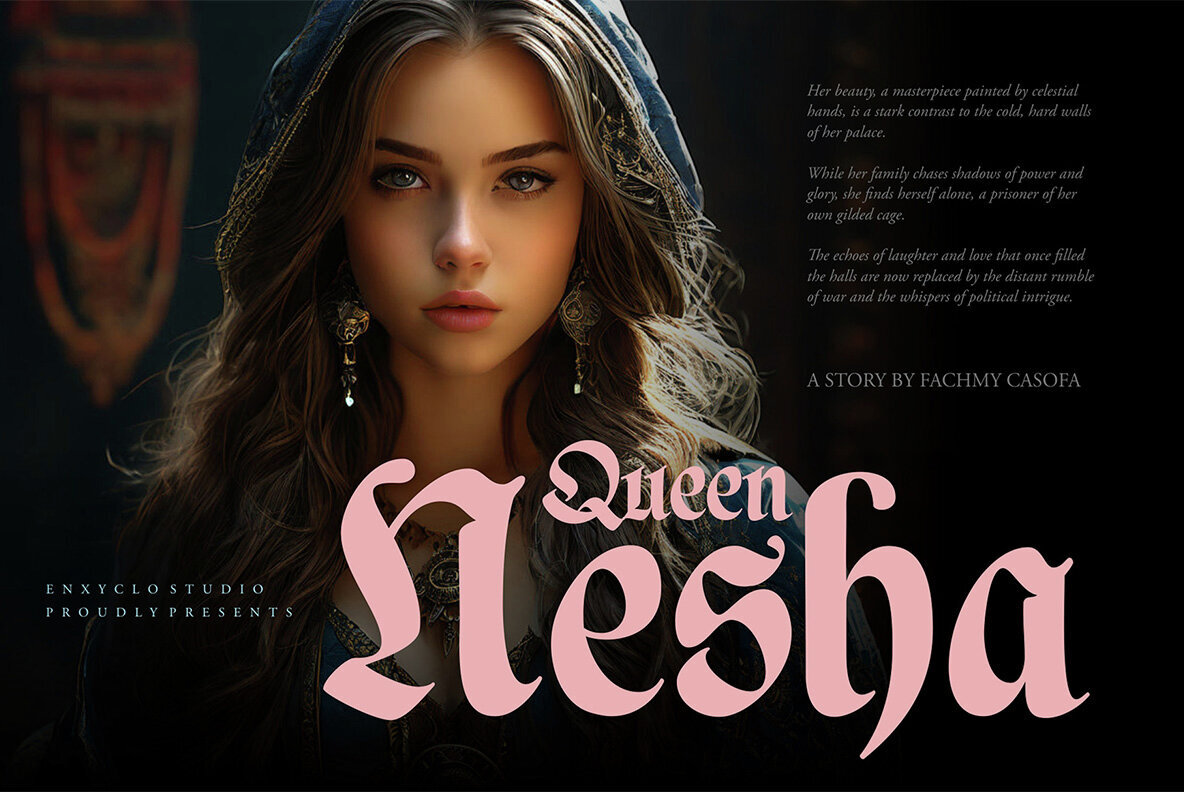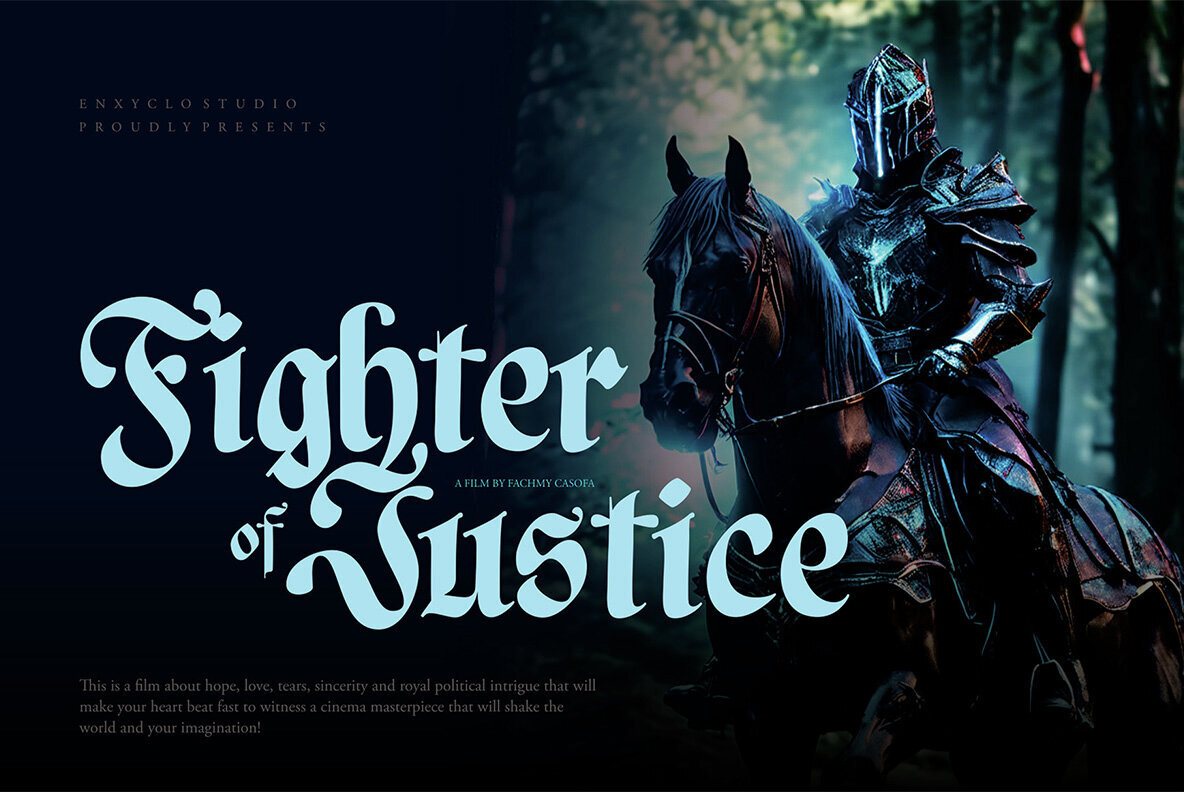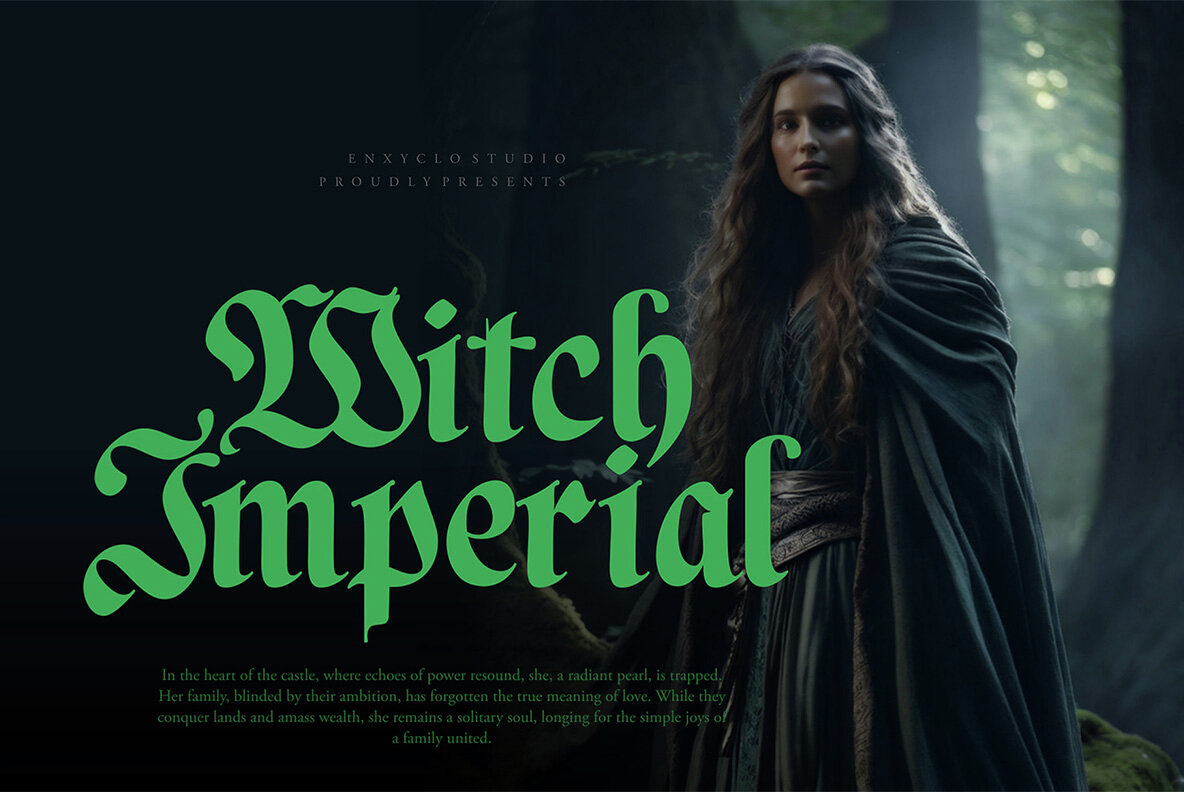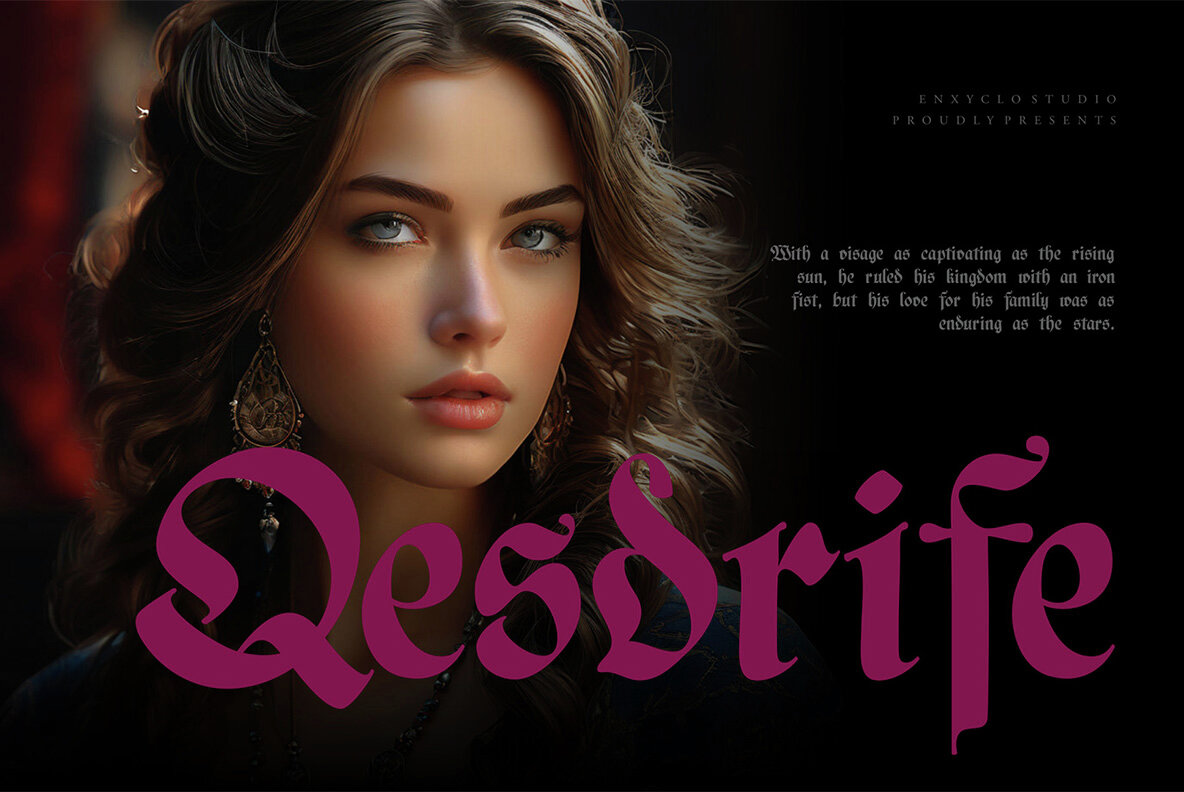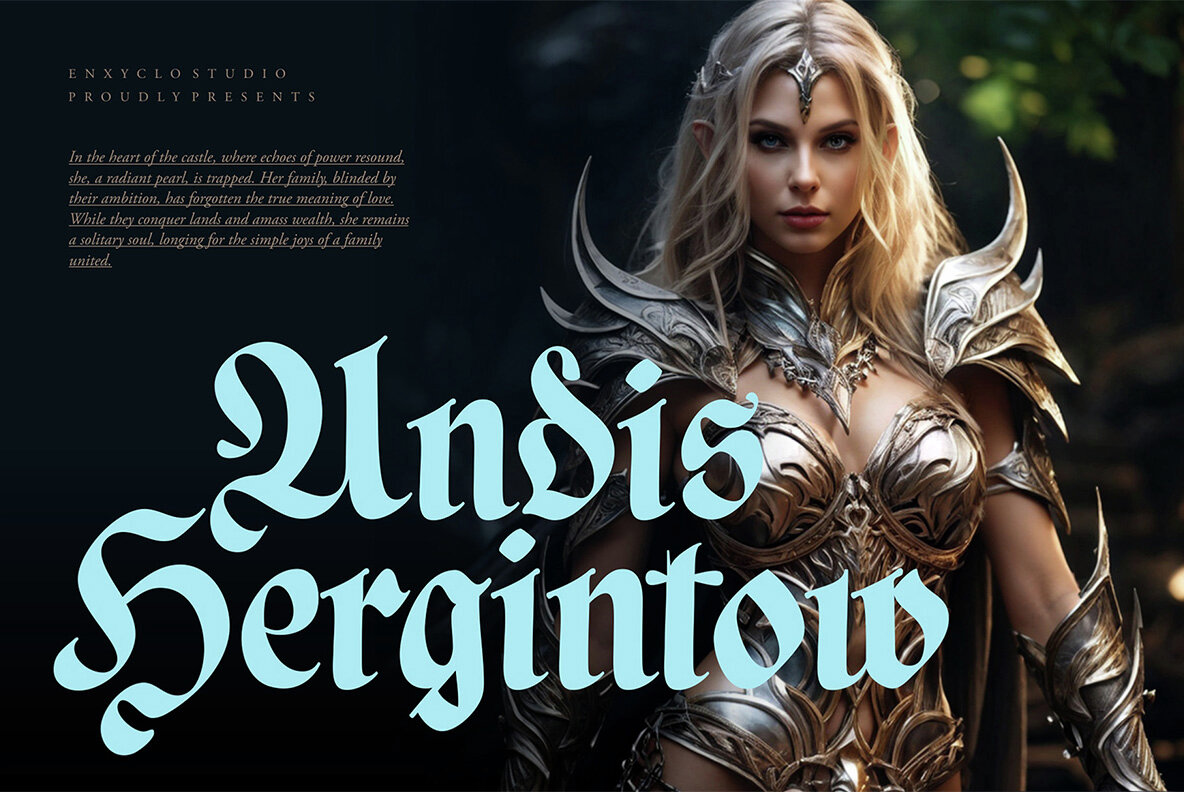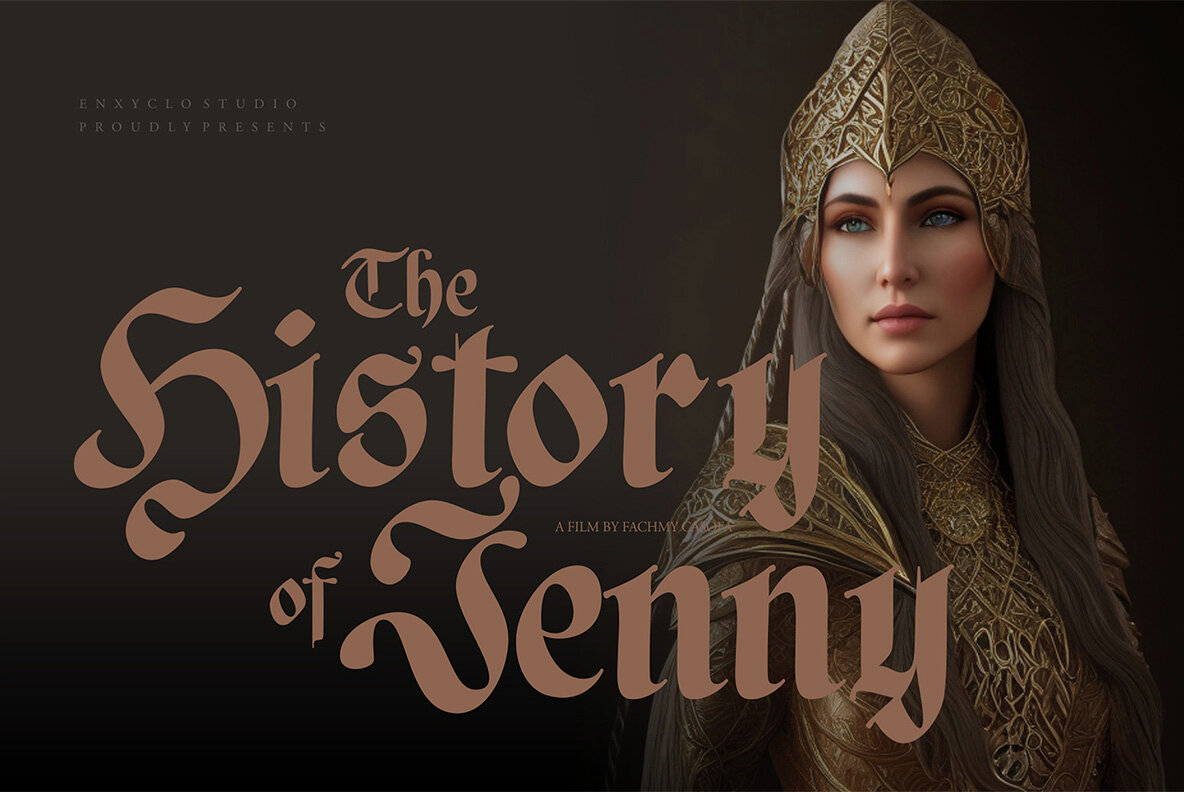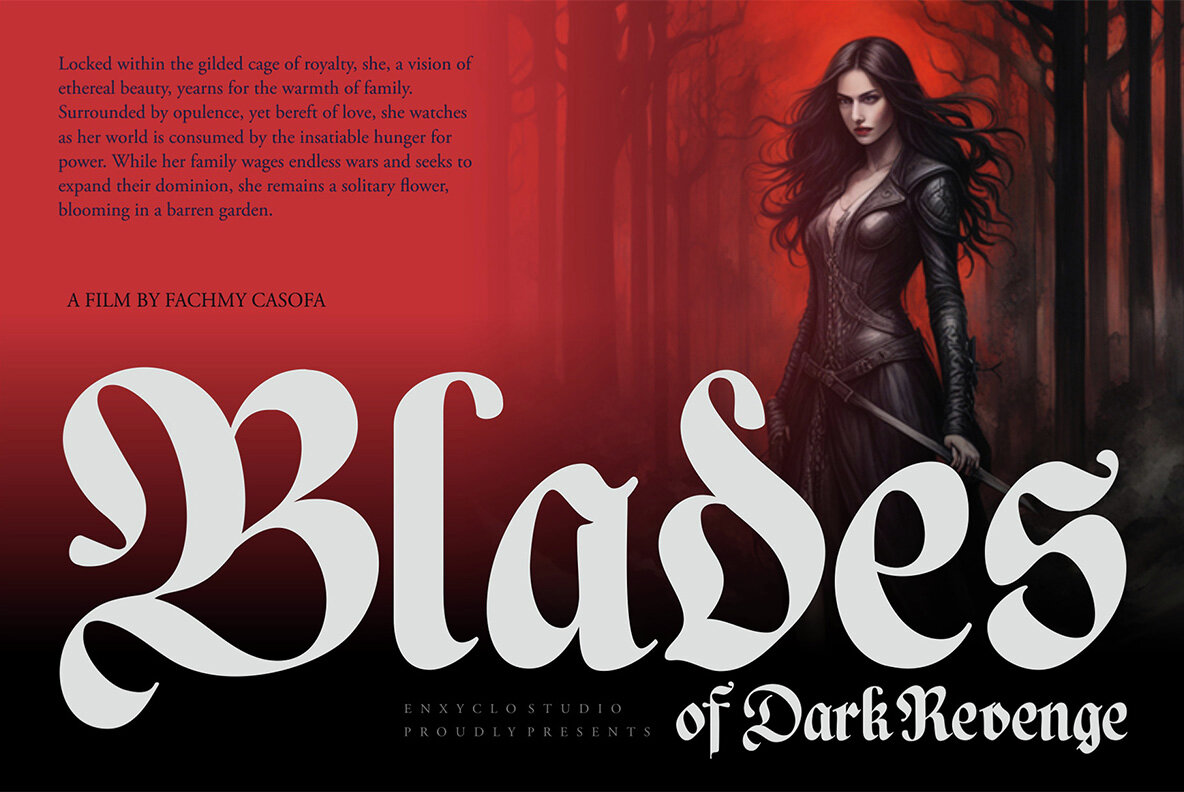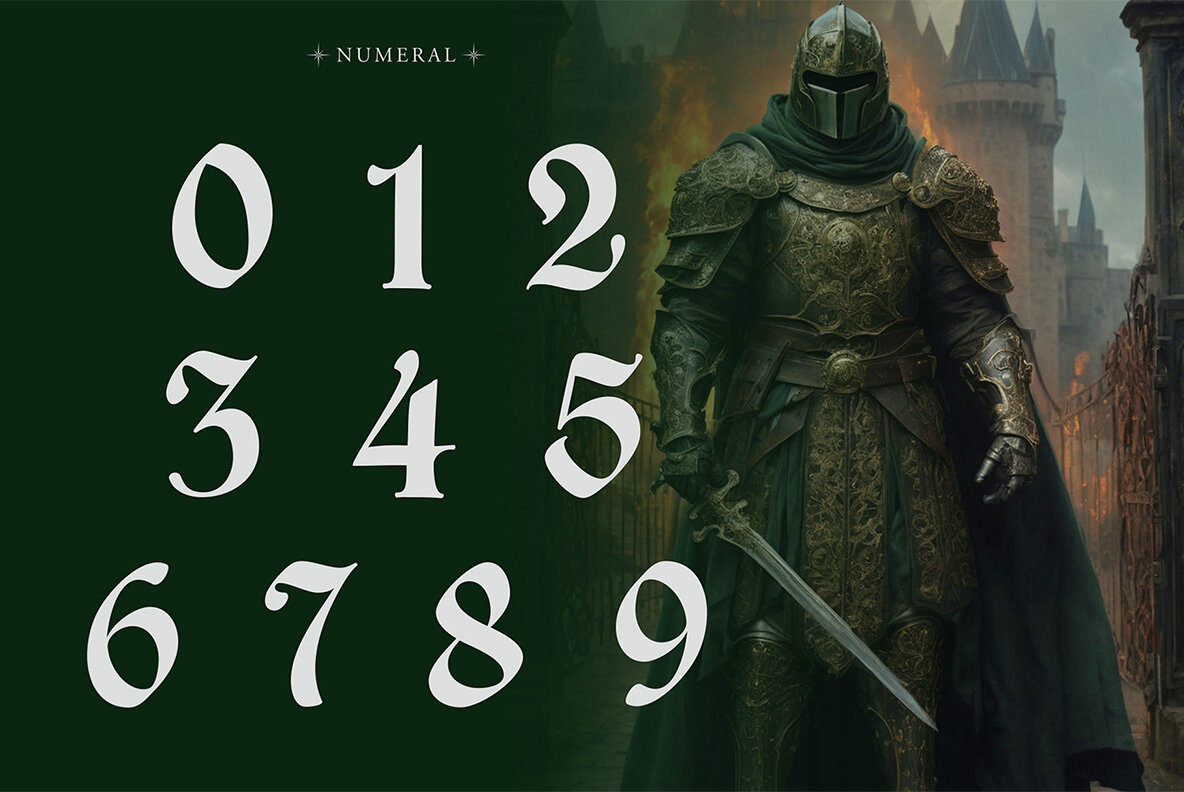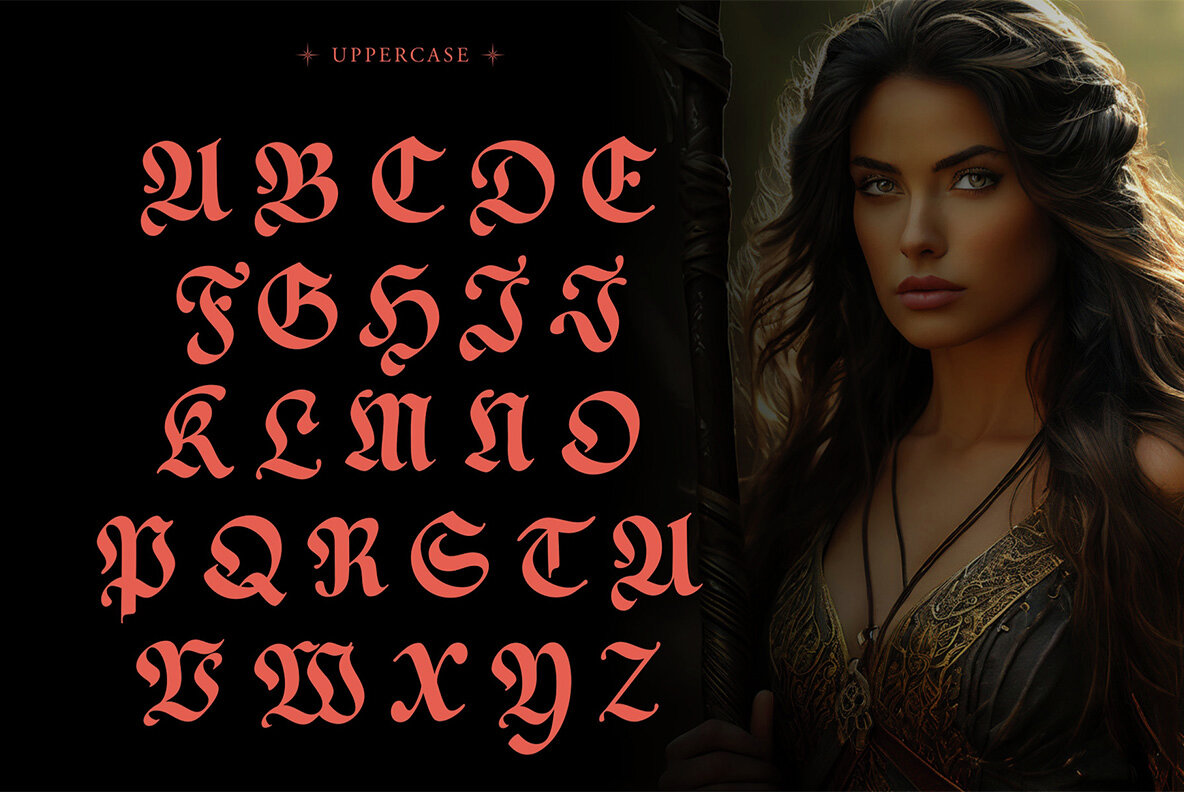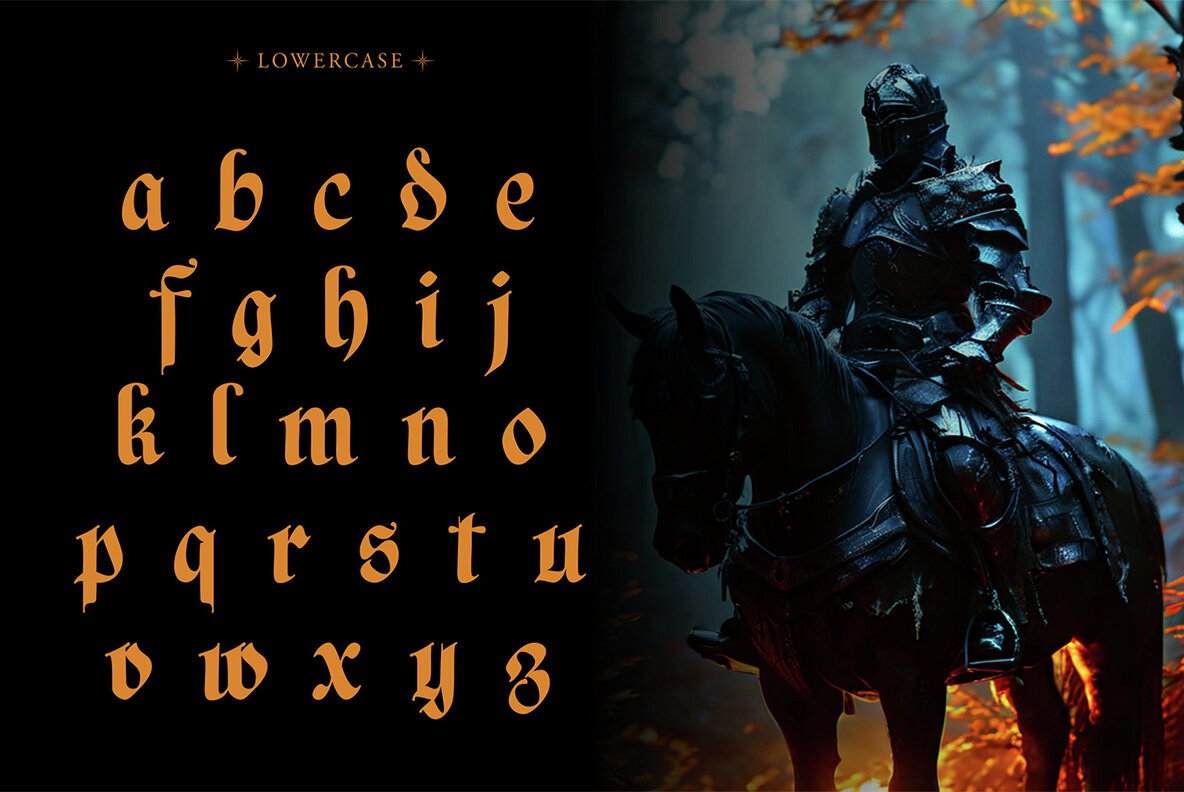
NCL Basefigh Font
NCL Basefigh Regular
NCL Basefigh is a unique medieval-inspired blackletter font with rounded corners, offering a modern twist on classic typography. Perfect for creative projects aiming for a blend of historical charm and contemporary aesthetics, this font is ideal for websites, posters, logos, and more. Its distinct design will make your work stand out and captivate your audience.
Featuring 228 total glyphs, NCL Basefigh includes uppercase and lowercase letters, numerals, punctuation, symbols, and multilingual support. This comprehensive set ensures versatility for various design needs, allowing you to infuse a classic touch into modern projects seamlessly.